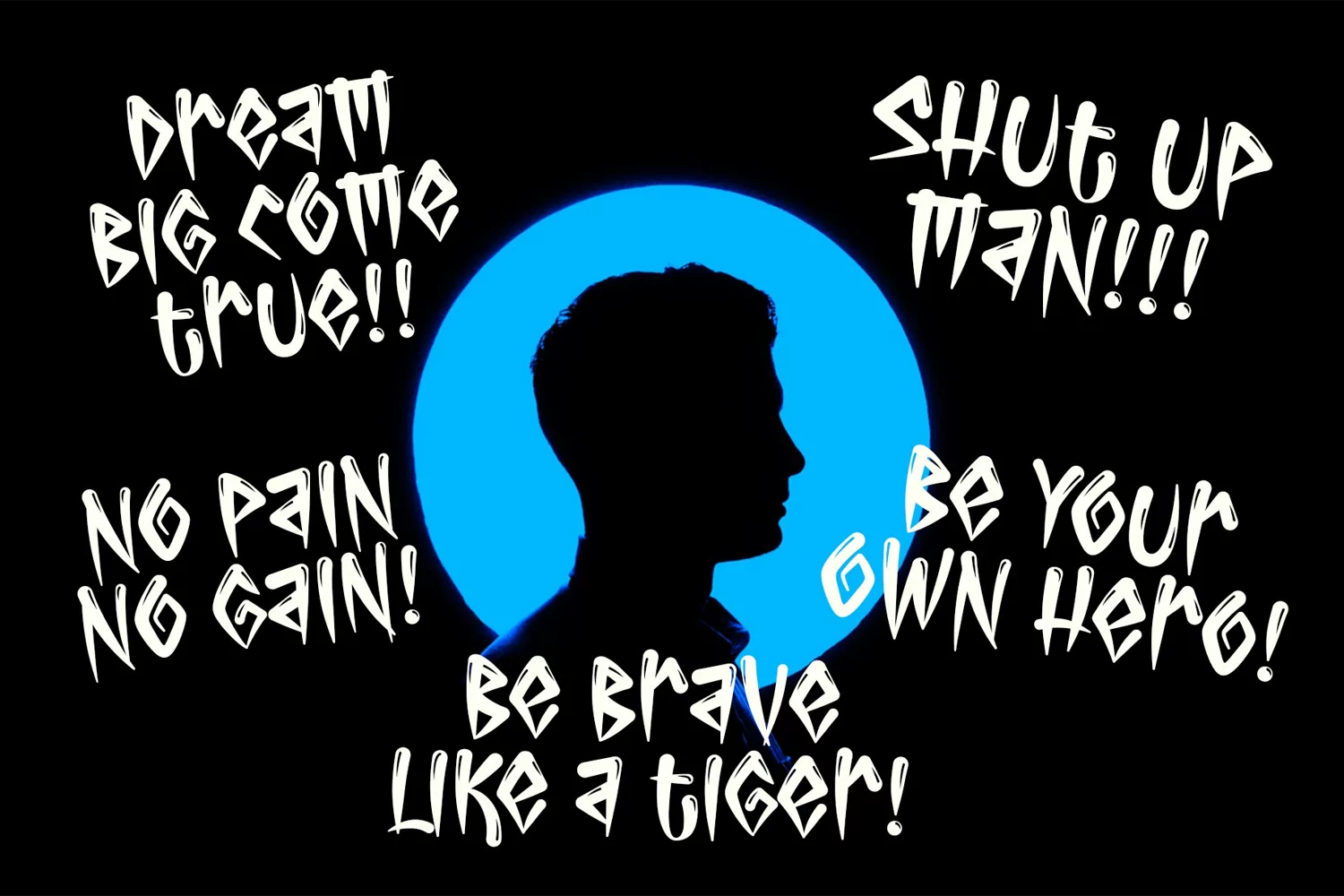
Bathilda is a terribly great expressive typeface to illustrate topics such as horror, zombie movie, nocturne atmosphere, hard rock festival and halloween theme.